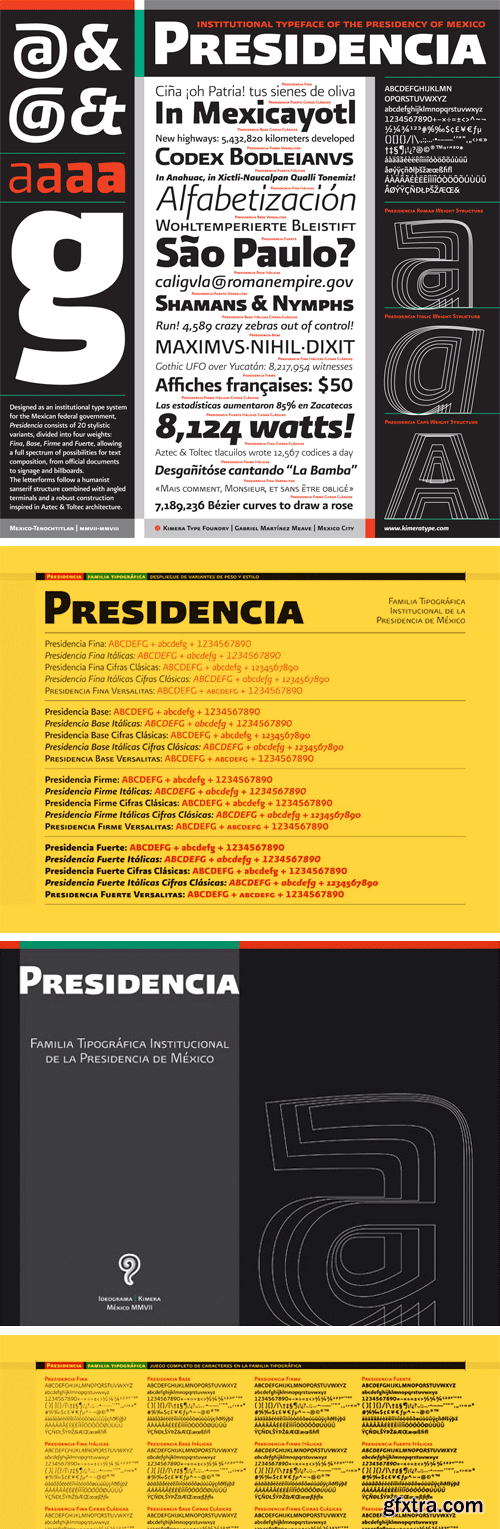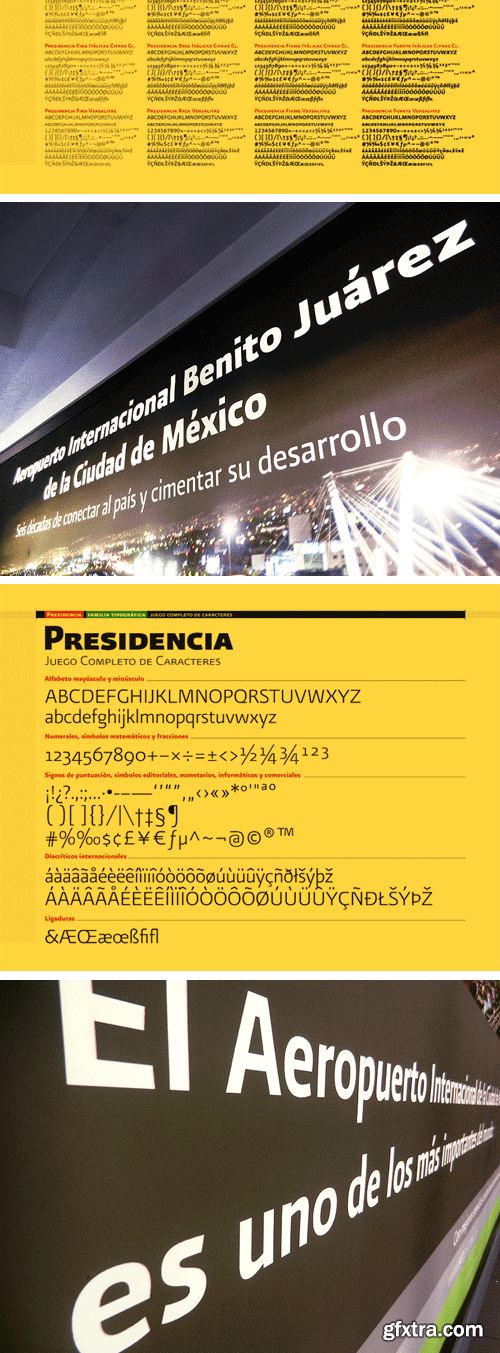
普拉迪斯 Sans 字体家族
Presidencia Sans Font Family
Institutional type system for the Mexican federal government. Inspired by Toltec and Aztec architecture, the letterforms of Presidencia follow a humanist sans-serif scheme that combines Mexican character with Latin structure. This grand family was commissioned by the Mexican Federal Government, to suit its new identity program, designed by Mexican firm Ideograma. The type family comprises twenty variants, to cover a full spectrum of possibilities, from official documents to corporate signage, billboards and nation-wide campaigns in all media.